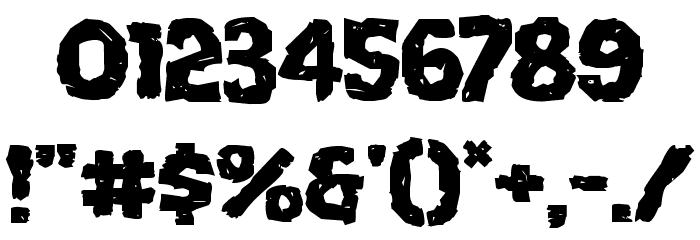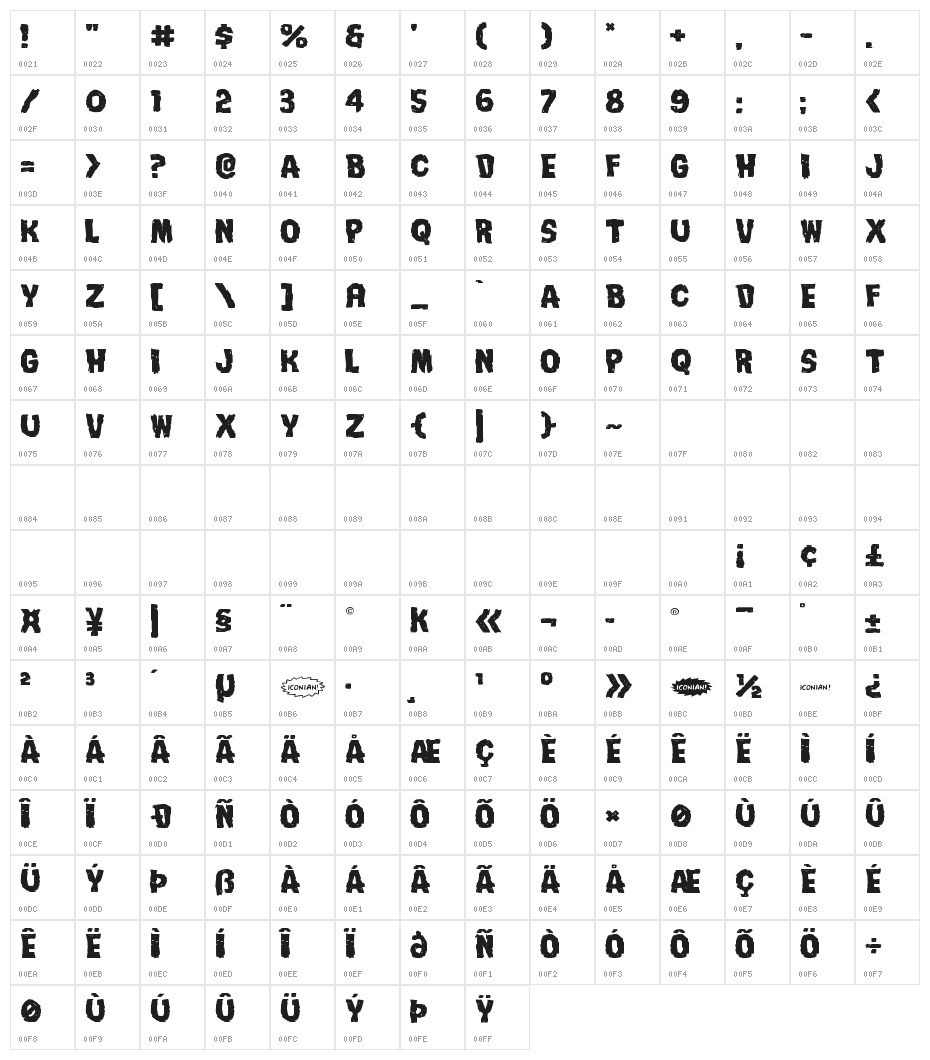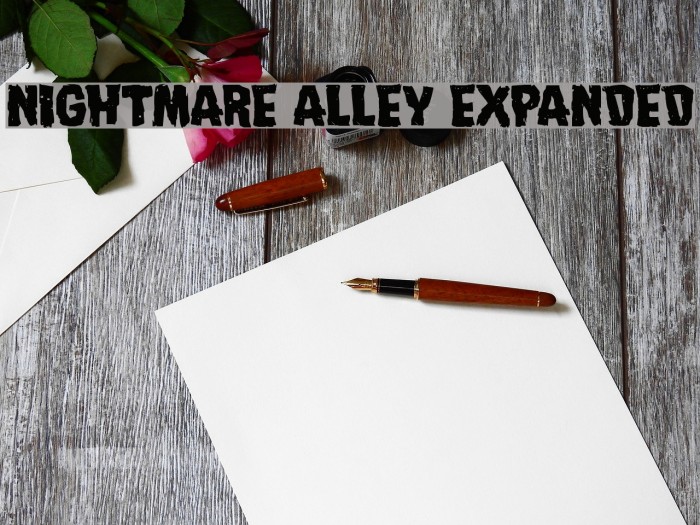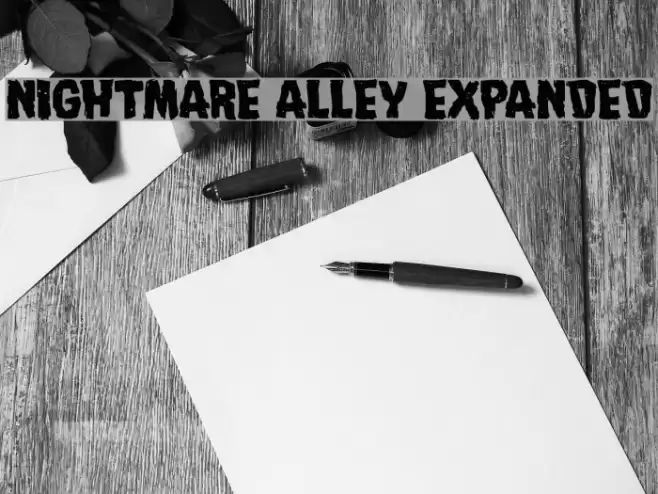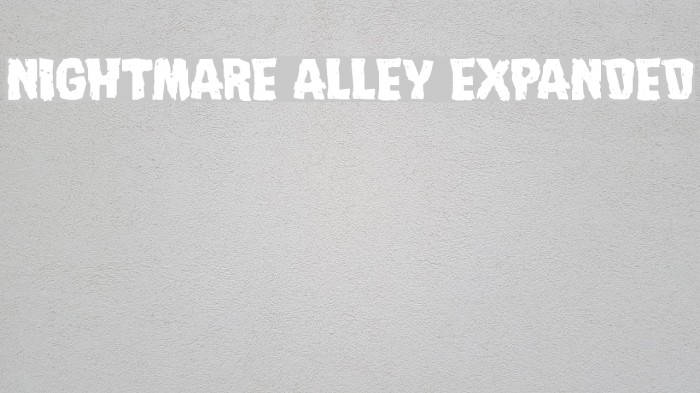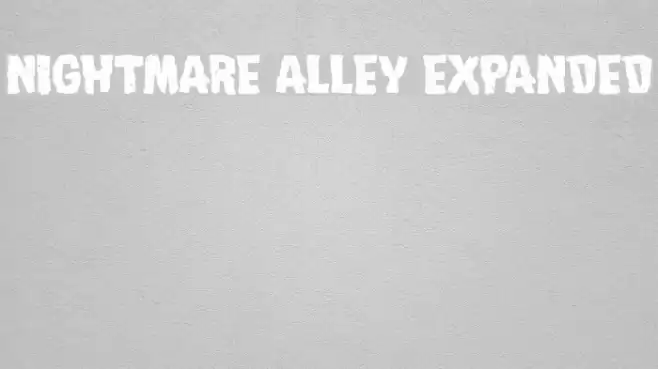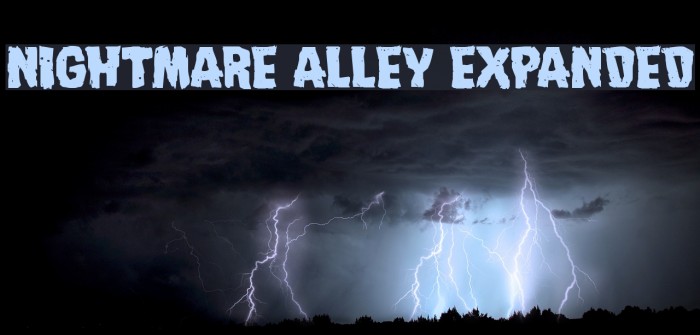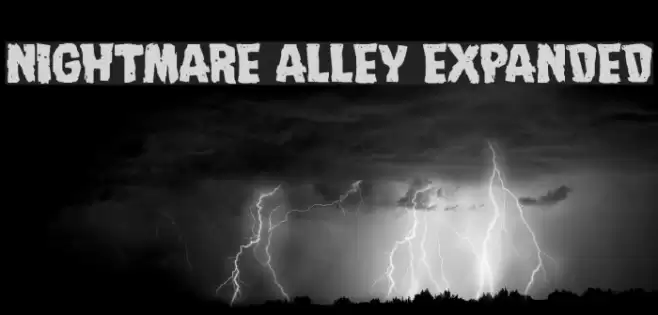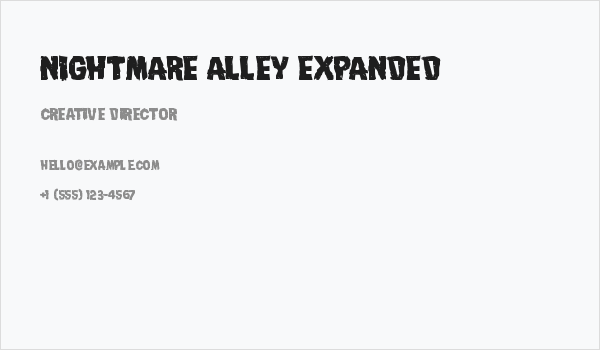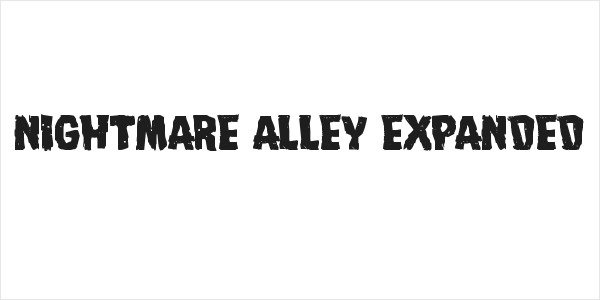
Nightmare Alley Expanded Font
Nightmare Alley Expanded Description
This font features a bold and rugged design, characterized by its distressed and textured appearance. Each letter appears as if it has been roughly carved or stamped, giving it a gritty and raw aesthetic. The uppercase and lowercase letters maintain a consistent style, with jagged edges and uneven surfaces that create a sense of movement and energy. The numbers and special characters follow the same design principles, ensuring a cohesive look across all glyphs. This font is ideal for projects that require a bold statement or an edgy, rebellious vibe.